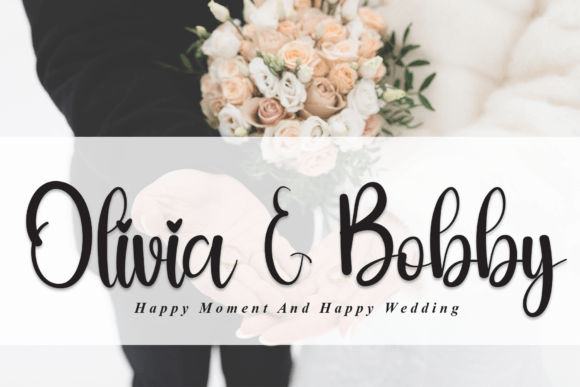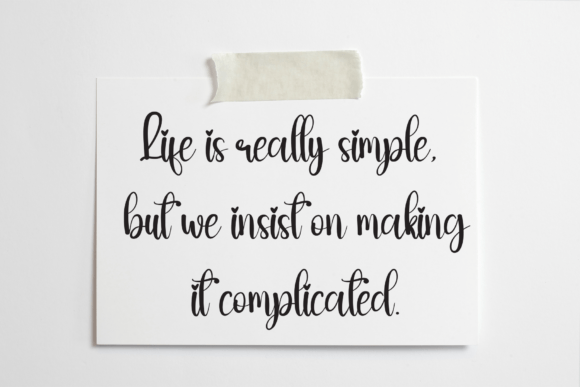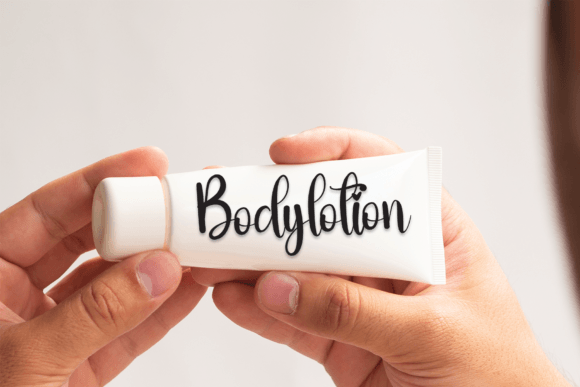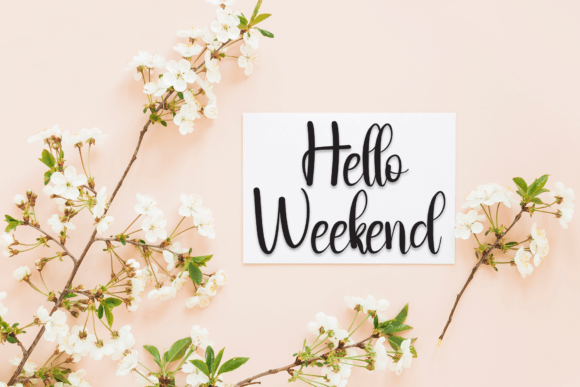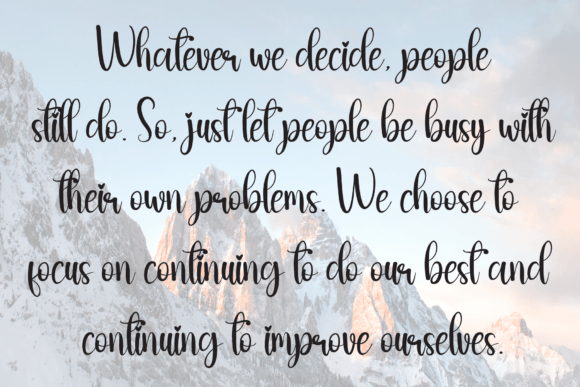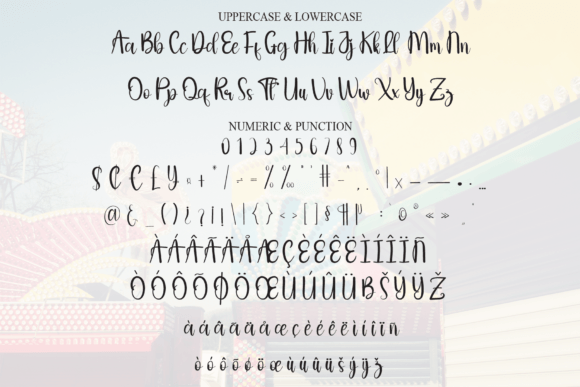
Introduction to Retrofest Font
Introducing an enticingly friendly, handwritten display font that captures the essence of sweetness.
Add a dash of delightful fun to your design projects with this charming font Perfect for crafting endearing wedding invitations, expressive cards, or any unique design requiring an infusion of whimsical touch.
Key Features of Retrofest Font
Why Choose Retrofest Font?
Retrofest Font offers exceptional quality and versatility, making it a valuable addition to your design toolkit. Whether you’re creating for personal projects or commercial use, Retrofest Font delivers professional results.